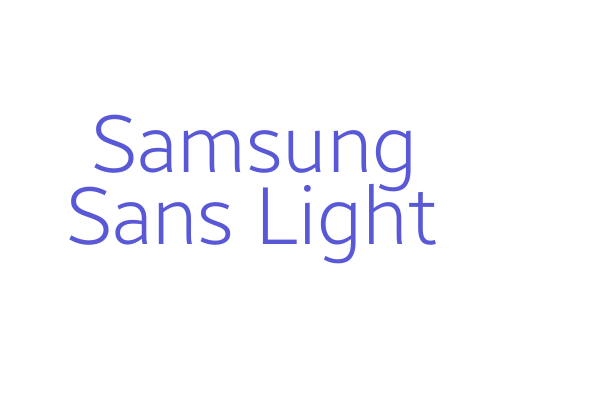
Samsung Sans Light is a sleek and modern sans-serif font designed by Dalton Maag Ltd. It belongs to the Samsung Sans font family and features a light weight, making it perfect for creating clean and minimalist designs. Ideal for use in digital interfaces, branding, and editorial design projects, this font exudes a contemporary and sophisticated aesthetic.
Font Name: Samsung Sans Light
Designer: Dalton Maag Ltd
Font Family: Samsung Sans
Weight: Light